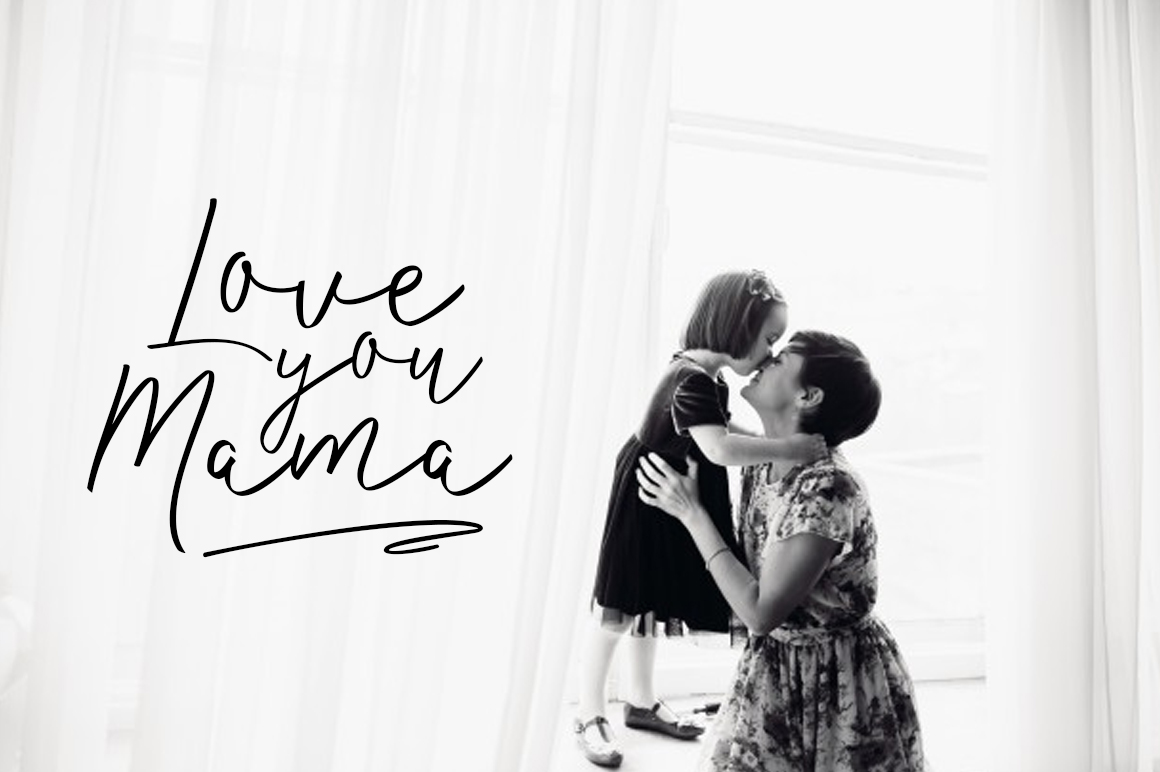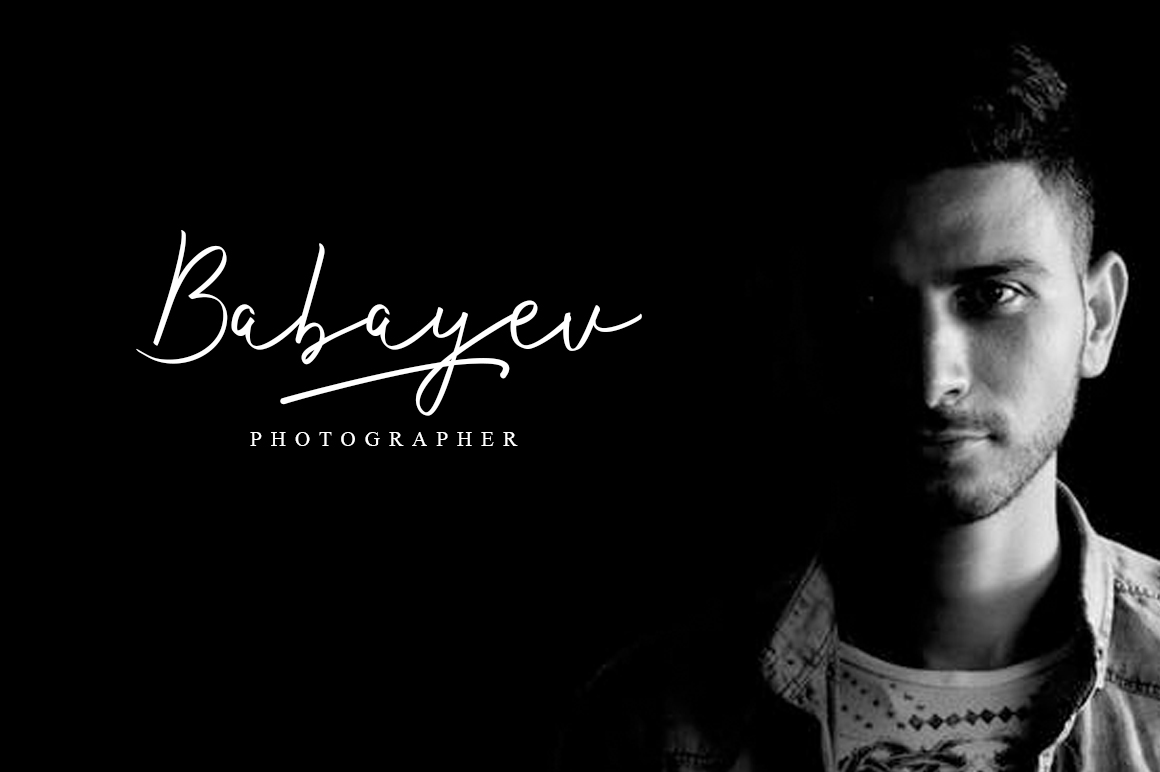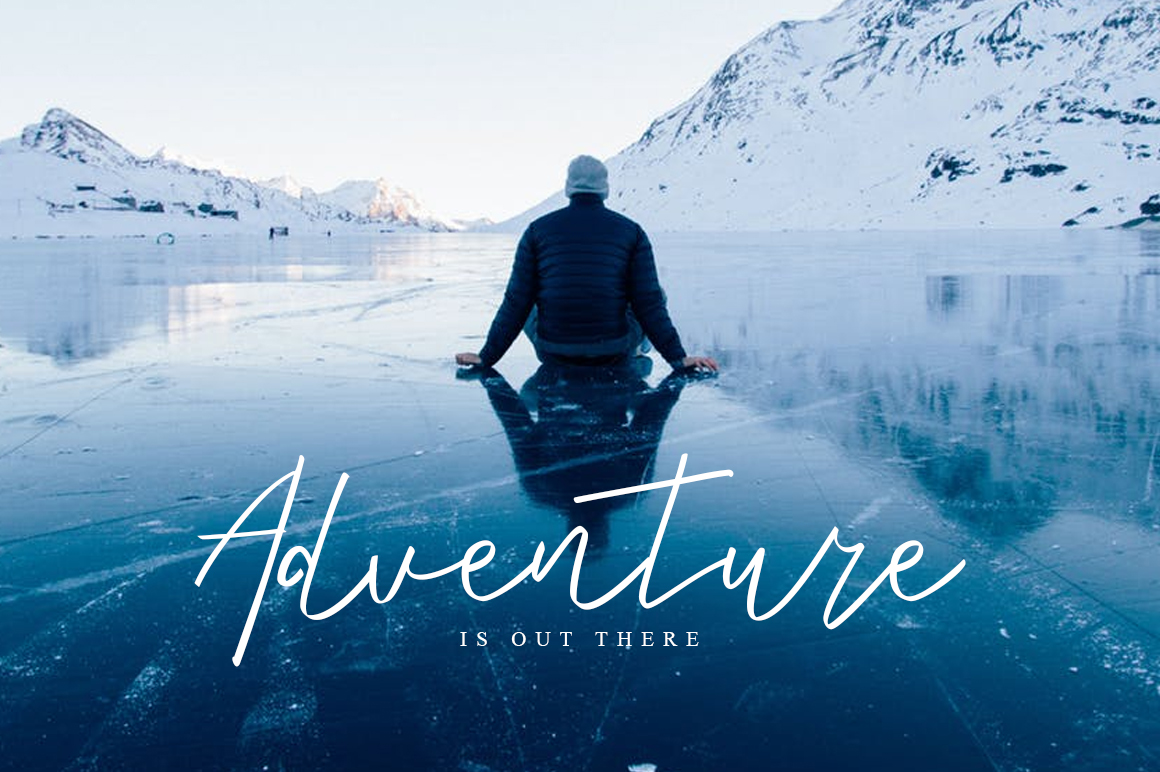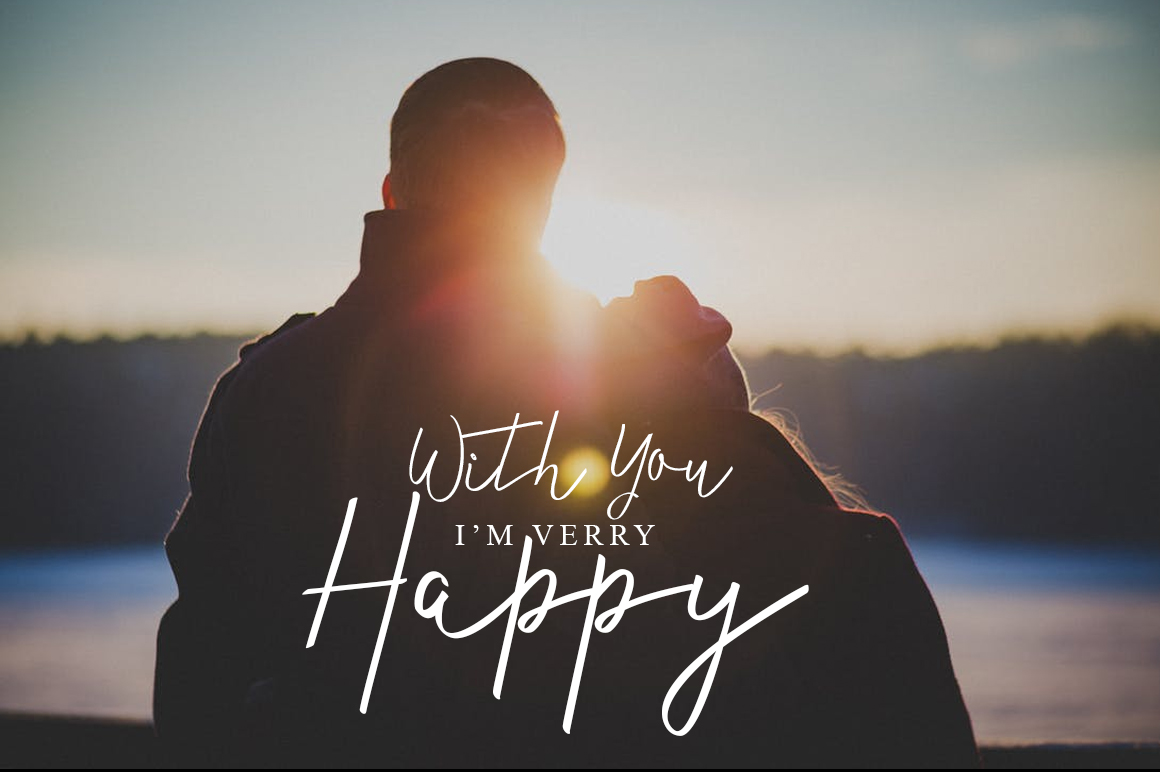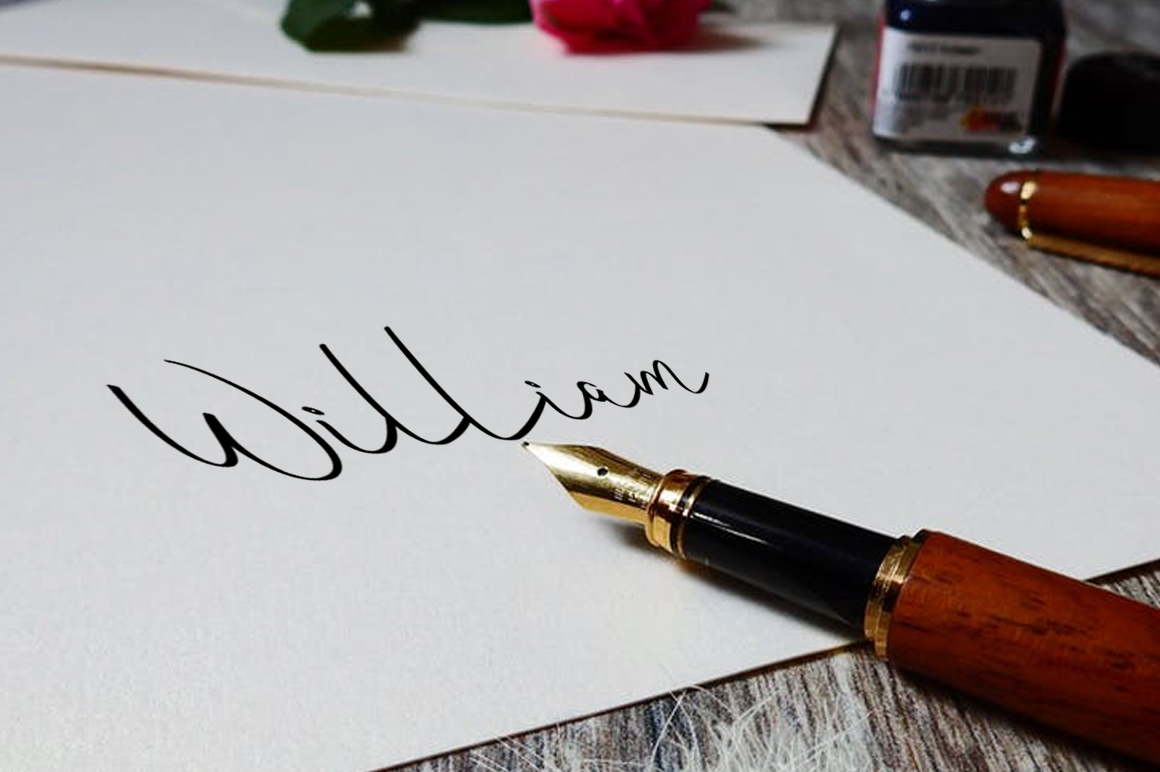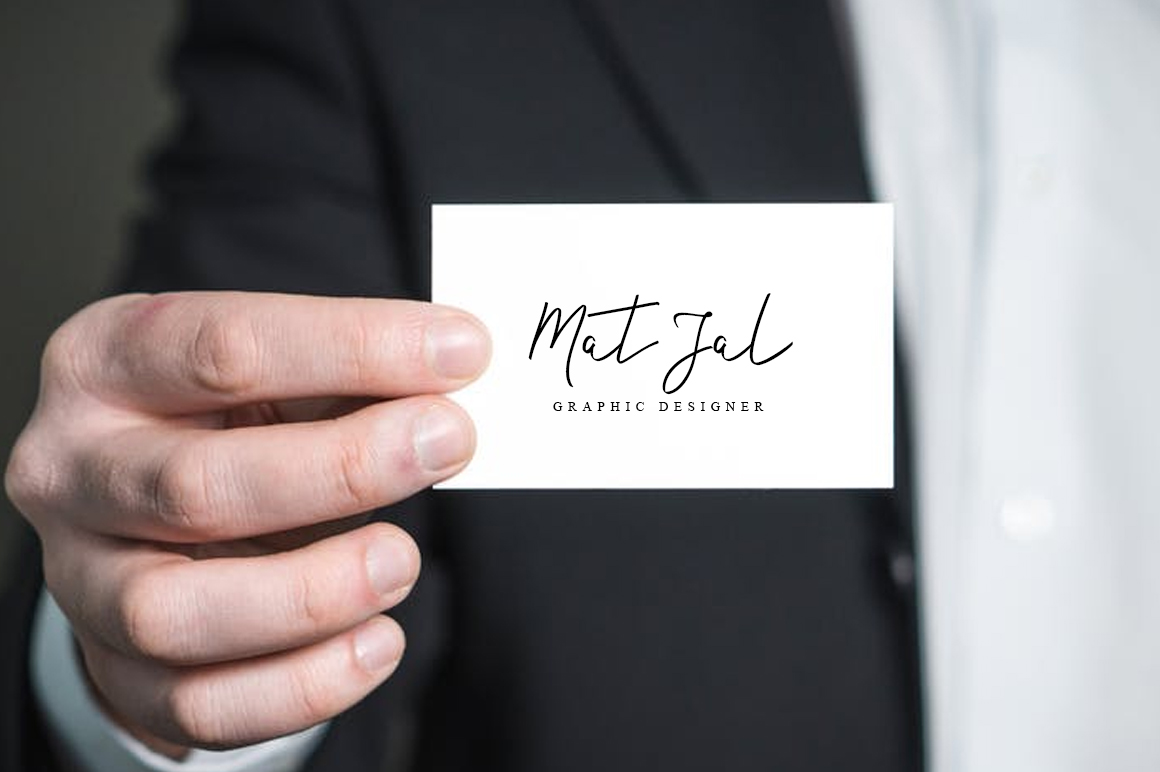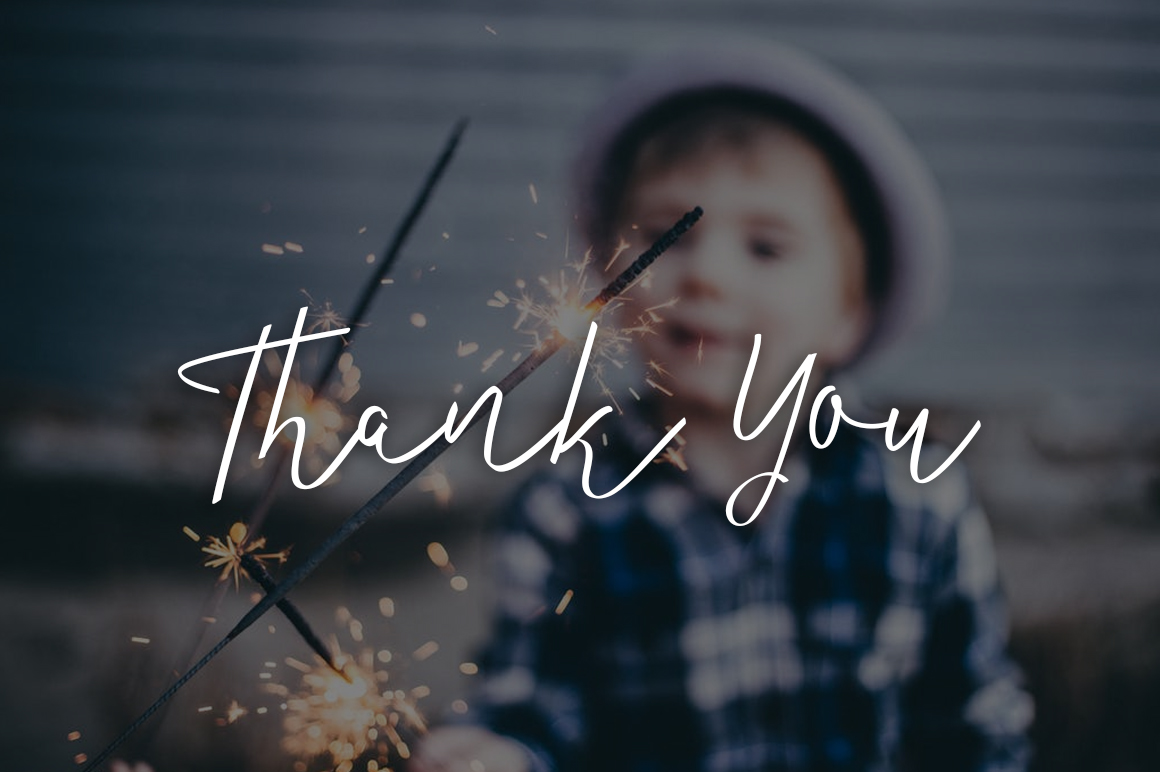
HomeScript FontsThesla Script Font Script Fonts Thesla Script Font FacebookXPinterestWhatsApp Thesla Script Font Poster 2 Thesla Script Font Poster 3 Thesla Script Font Poster 4 Thesla Script Font Poster 5 Thesla Script Font Poster 6 Thesla Script Font Poster 7 Thesla Script Font Poster 8 About Thesla Script Font Thesla Script font is a handmade, thin line font. DOWNLOAD NOW People also explored Love Diary Font Gentleman Font Charlotte Font Pink Script Font College Lecture Striped Font Amatir Font Amora Wintergate Font Littleenjoy Font Little Mirai Font 313 0 TagsThesla Script Font Previous articleFalcon Script FontNext articleLet That Be Enough Font LEAVE A REPLY Cancel reply Comment: Please enter your comment! Name:* Please enter your name here Email:* You have entered an incorrect email address! Please enter your email address here Website: Save my name, email, and website in this browser for the next time I comment. Personal Use Free Screengem Personal Use Free Read more about this font Boston Traffic Personal Use Free Read more about this font Talking on Personal Use Free Read more about this font Brittish State Personal Use Free Read more about this font BLOG How to Install and Use Fonts on Windows, macOS, and Web Projects How to Install and Use Fonts on Windows, macOS, and Web Projects Fonts are a crucial part of design and branding. Whether you’re designing a... The 10 Best Handwriting Fonts to Add Personality to Your Designs Using Fonts in Digital Marketing: Tips to Strengthen Your Brand Identity Elegant Wedding Invitation Fonts – Handwritten & Script Fonts